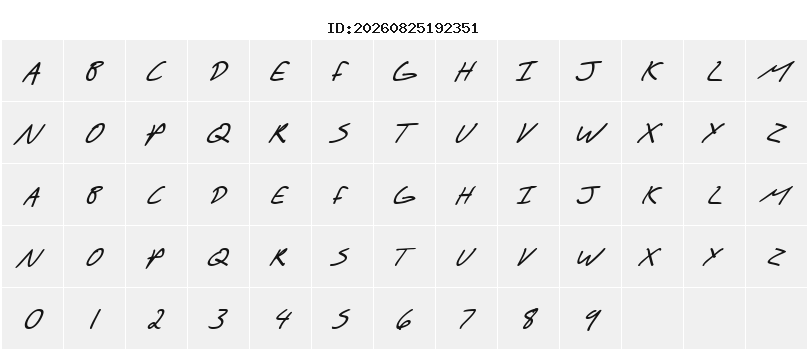
SF Scribbled Sans SC Preview
• Font Name: SF Scribbled Sans SC
• Font ID: SF Scribbled Sans SC Bold Italic
• Full Font Name: SF Scribbled Sans SC Bold Italic
• PostScript Name: SFScribbledSansSCBoldItalic
• Character Count: 198
About SF Scribbled Sans SC.ttf
SF Scribbled Sans SC.ttf is a modern, elegant sans-serif font designed for ultimate readability and visual harmony. Perfect for branding, headlines, web design, and print materials.